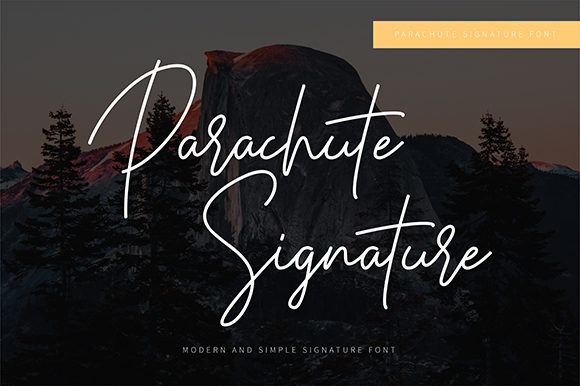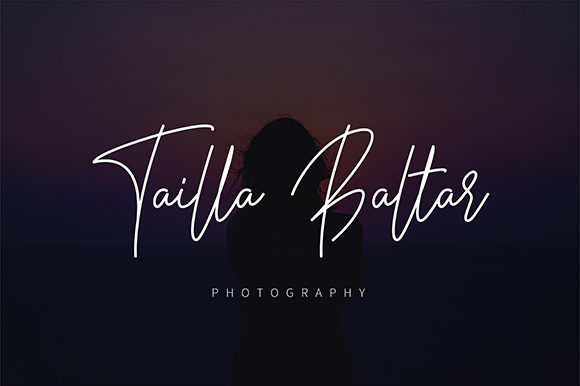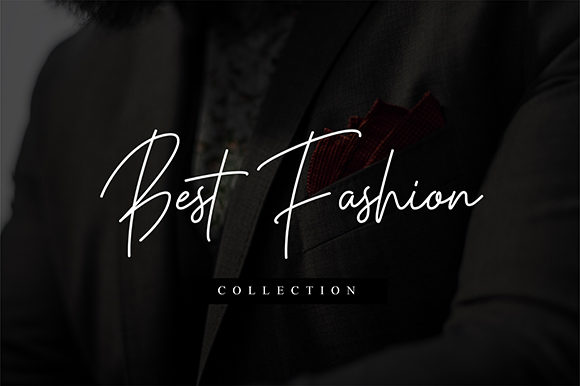
About Parachute Signature Font
Parachute Signature is a gorgeous script font. It maintains its classy calligraphic influences while feeling contemporary and fresh. This versatility will appeal to a wide range of crafty ideas, from letterheads and titles, to stationery.